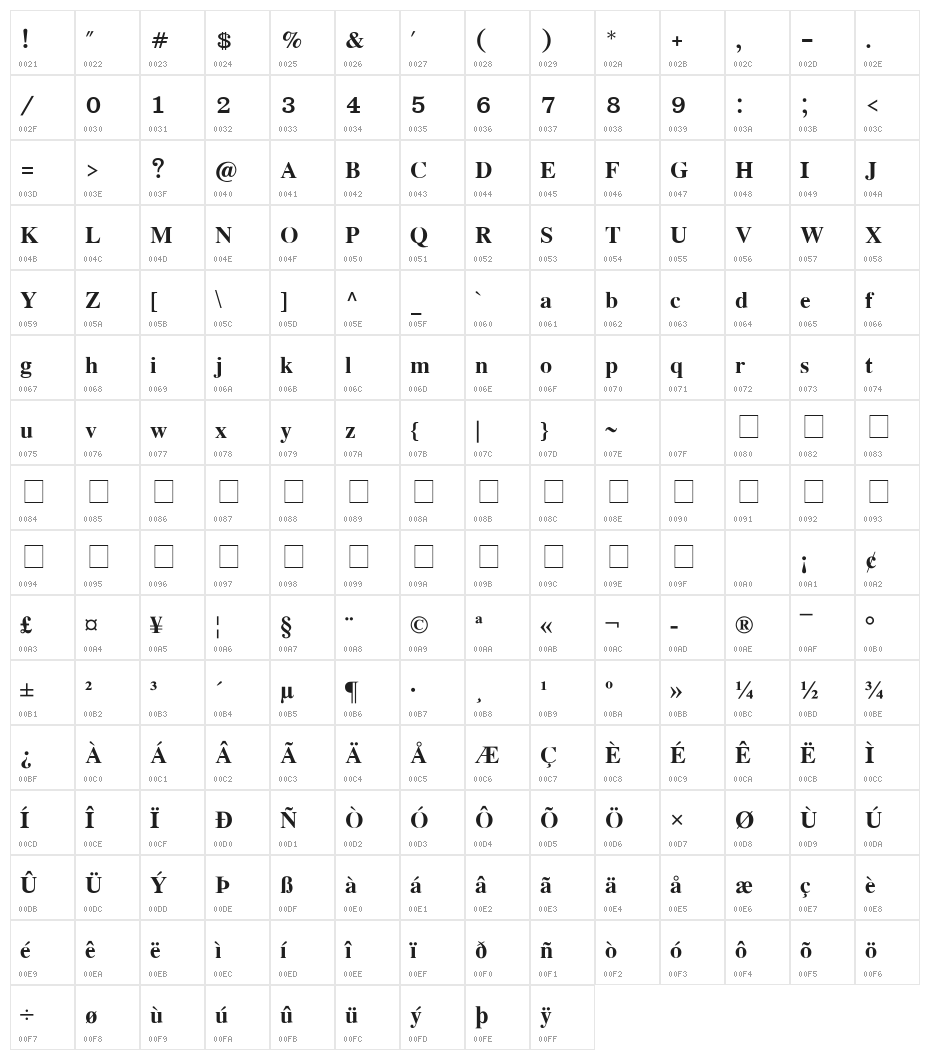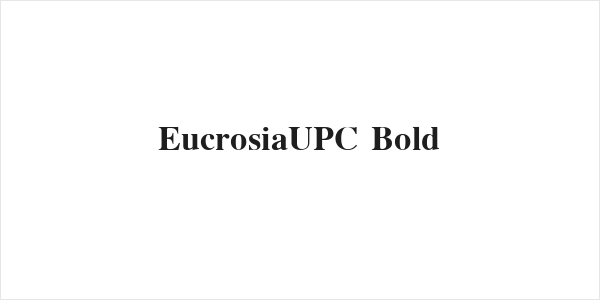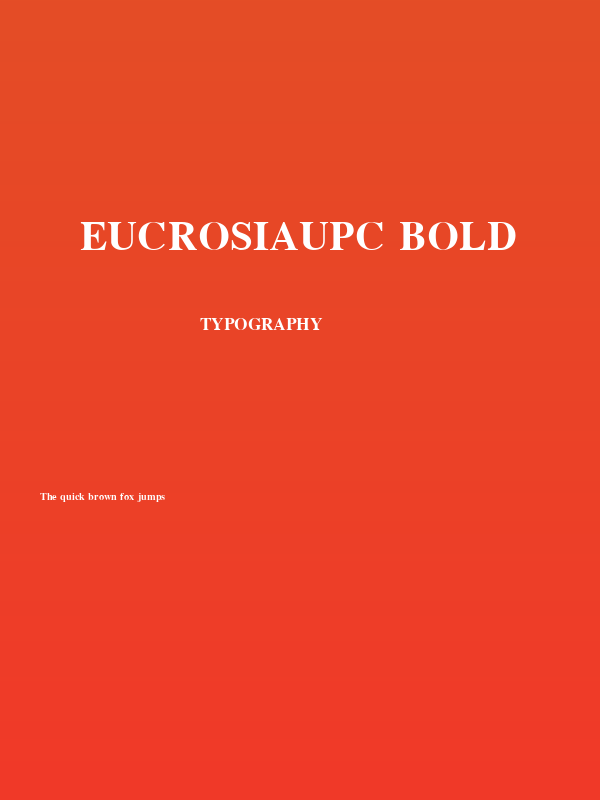
EucrosiaUPC Bold Font
EucrosiaUPC Bold Description
This font features a bold and authoritative presence with its strong serif design. The characters are well-defined with a classic elegance, making it suitable for formal and professional settings. The uppercase letters exhibit a commanding stature, while the lowercase letters maintain readability and charm. The numerals are clear and distinct, ensuring they stand out in any context. Special characters are designed with precision, adding to the font's versatility. Its bold weight and high contrast between thick and thin strokes contribute to its impactful appearance.
| Use Case | Headlines, Logos, Editorial |
| Proposed Projects | Ideal for book covers, formal invitations, corporate branding, and editorial headlines. |